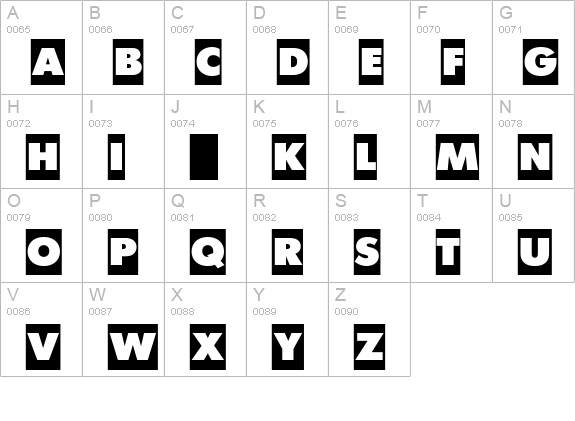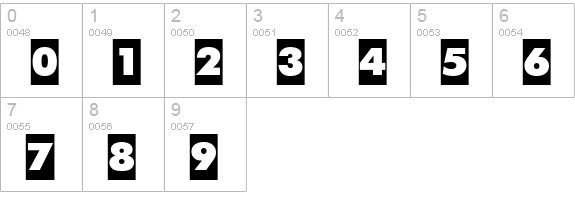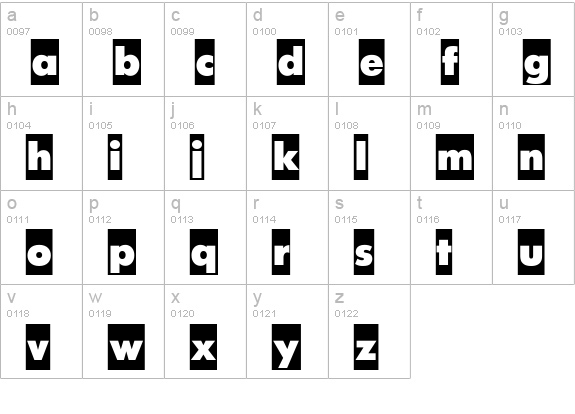
FuturisCameoC Font Details
FuturisCameoC font is a modern and stylish typeface that exudes elegance and sophistication. Its sleek lines and distinctive curves make it perfect for a wide range of design projects, from branding to advertising. The font's futuristic aesthetic gives it a unique edge that will make your text stand out. Best of all, FuturisCameoC font is available for free download at FontsMarket.com. This means you can add this eye-catching font to your collection without having to spend a dime. Whether you're a designer looking to elevate your projects or a content creator searching for a fresh look, FuturisCameoC font is sure to impress with its versatility and charm. Download it today and start creating stunning visuals that will leave a lasting impression.